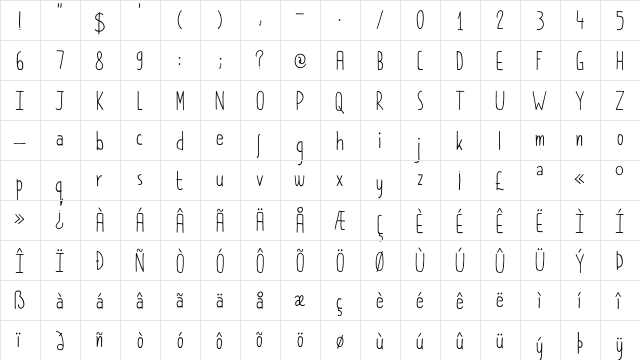
DK Pimpernel Regular
| Foundry | David Kerkhoff |
| Designer | David Kerkhoff |
Design Context for DK Pimpernel Typeface
DK Pimpernel takes a measured approach to typography — its balanced proportions and neutral character make it a reliable workhorse for both digital and print work.